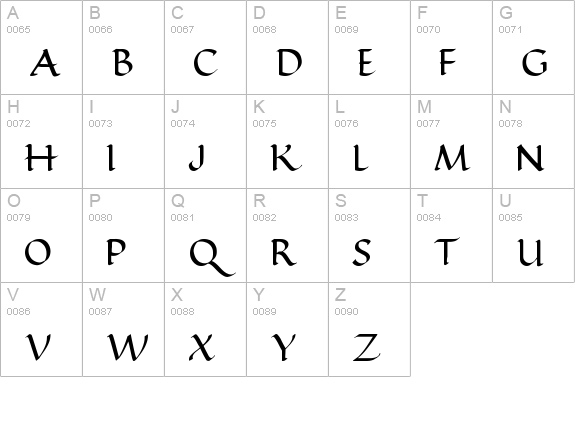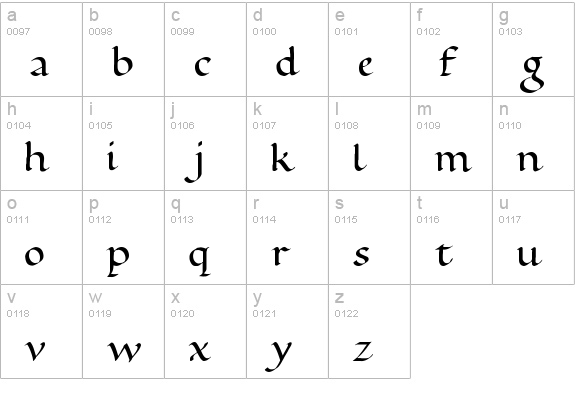
Ramsey Foundational - DGL Bold Font Details
Ramsey Foundational - DGL Bold is a strong, high-contrast variant in the Ramsey typeface family \xE2\x80\x94 well suited to headlines, attention-grabbing titles, and strong calls-to-action.
Ramsey Foundational - DGL Bold font is an exquisitely designed typeface that effortlessly blends modernity with a touch of elegance. Its bold and strong letterforms make a bold statement, commanding attention and leaving a lasting impression. Perfect for eye-catching headlines, attention-grabbing titles, and impactful designs, Ramsey Foundational - DGL Bold font is truly a versatile choice for any creative project. Its sleek and clean lines give it a contemporary appeal, while its bold weight adds a sense of authority and confidence. What sets Ramsey Foundational - DGL Bold font apart is that it is not only visually striking but also freely available to download at FontsMarket.com. This means that you can easily enhance your designs without any additional cost. With Ramsey Foundational - DGL Bold font, you have the freedom to experiment and explore endless creative possibilities. Whether you are designing a logo, creating a poster, or crafting a website, this font will elevate your work to new heights. Its timeless appeal and versatility make it suitable for a wide range of design projects and industries. Download Ramsey Foundational - DGL Bold font today from FontsMarket.com and unleash your creativity with this remarkable typeface. With its bold and impactful presence, this font will captivate your audience and make your designs truly unforgettable.